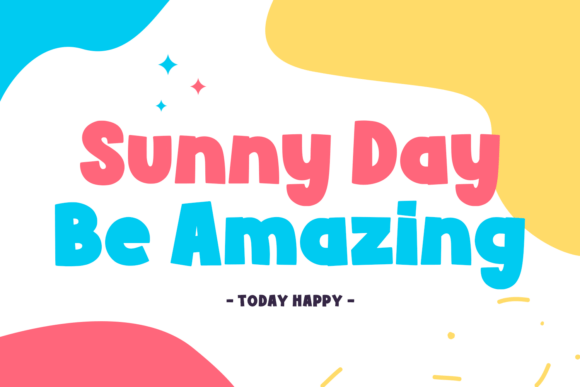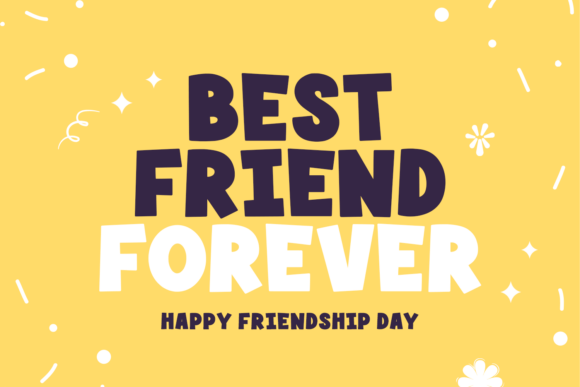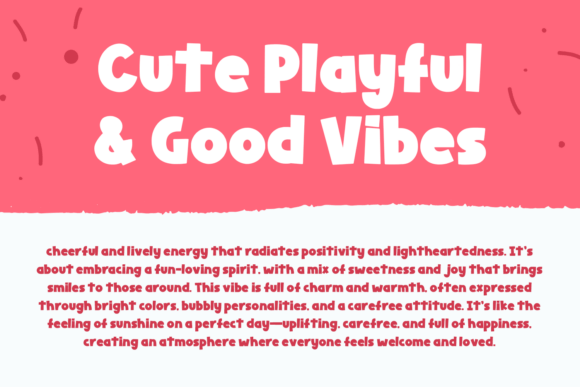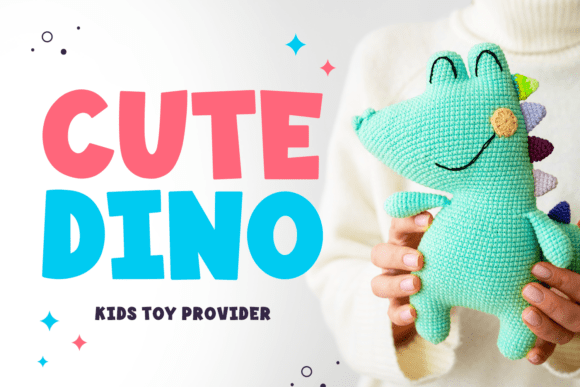
Introducing the Fin-tastic World of Baby Shark Font
Have you ever stared at a blank design canvas, searching for the perfect font to capture the essence of a children’s theme? That’s exactly what happened to me last week when I was working on a kids’ storybook project. I wanted a font that would transport my young readers to an underwater world of fun and adventure, and that’s when I stumbled upon the delightful Baby Shark Font.
This charming display font is designed to bring a smile to the faces of kids and adults alike. With its bold, rounded letters and playful style, the Baby Shark Font is perfect for designers looking to create engaging and whimsical designs for younger audiences. Whether you’re crafting educational materials, playful posters, or birthday invitations, this font is sure to add a touch of fun and energy to your work.
Baby Shark Font Key Features
- Font Family: A custom-designed font inspired by the popular children’s song “Baby Shark”, featuring a unique and playful shark character.
- Unique Characteristics: The font features a distinctive shark character that can be customized with different emotions and expressions, adding a fun and interactive element to designs.
Baby Shark Font Review
The Baby Shark Font is a unique, playful font designed for kids and families. It’s perfect for creating engaging and fun content, especially for nursery rhymes, children’s stories, and educational materials. ✨
Here are some things that work well in the Baby Shark Font:
- It’s extremely recognizable and memorable, thanks to its association with the popular children’s song.
- The font is available in various styles and weights, making it easy to customize for different applications.
- It’s highly legible, even at small font sizes, which is essential for reading materials aimed at young children.
- The font may be too childish or gimmicky for some audiences, which could limit its use in more serious contexts.
- The font’s design may not be as versatile as other fonts, which could make it less suitable for certain projects or applications.
- The font’s popularity may also lead to overuse, which could make it feel less unique or special.
Overall, the Baby Shark Font is a fun and engaging font that’s perfect for kids and families. While it may have some limitations, its unique design and high recognition make it a great choice for creating engaging content for young audiences. ⚠️